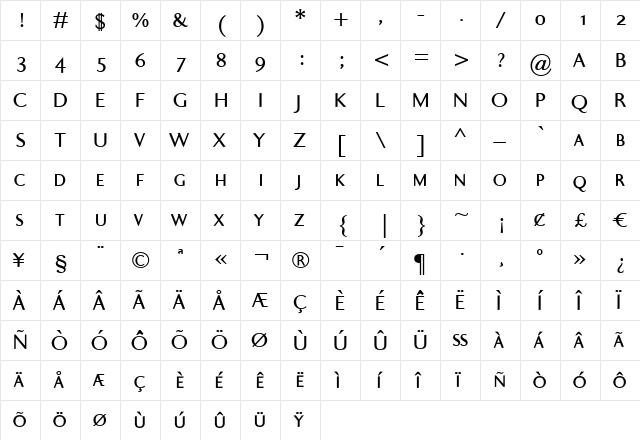
Ela Sans SemiBold Caps Regular
Design Context for Ela Sans SemiBold Caps Typeface
Ela Sans SemiBold Caps offers clean, dependable letterforms without strong stylistic allegiance, making it a practical choice for designers who need flexibility. Its bold stroke weight gives it real presence on the page.